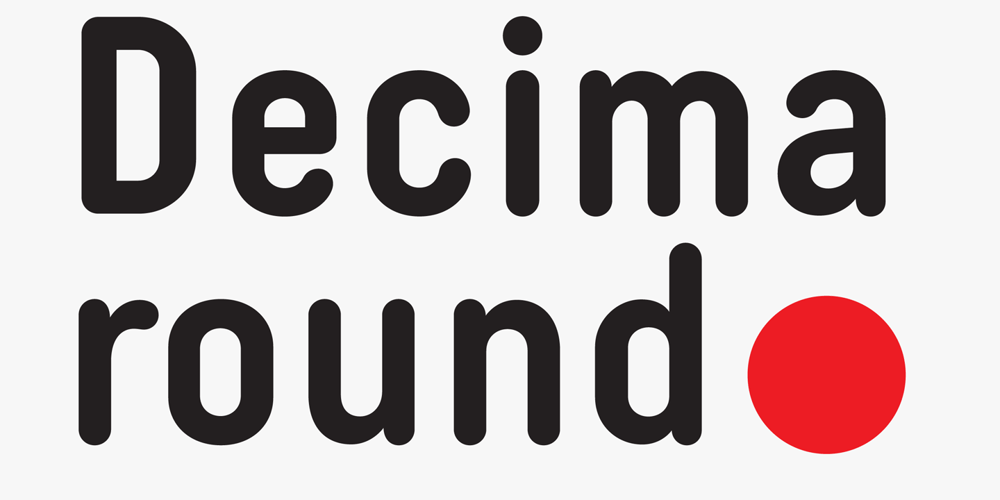
Decima Round Font Family was designed by Ramiz Guseynov and published by TipografiaRamis. Decima Round contains 12 styles and family package options. Decima Round – one more addition to the Decima fonts family. It is a new version of recently released Decima Pro fonts with new content and styles. The main difference in the new version is a visual softer impressions of letter shapes made by the rounding of all glyphs’ corners and terminals. Decima Round is released in OpenType format with some OpenType features and support of most Latin languages as well as Cyrillic.